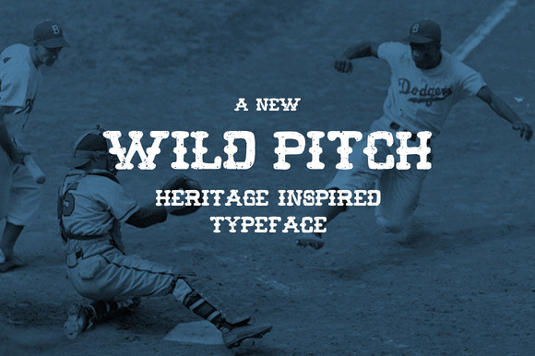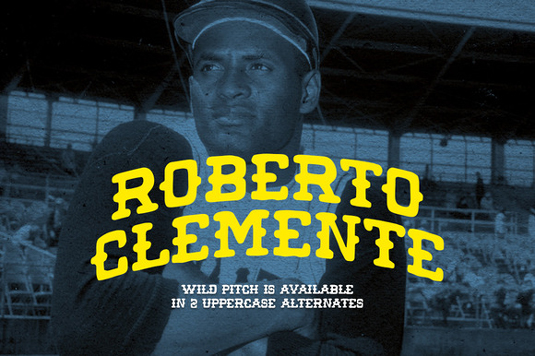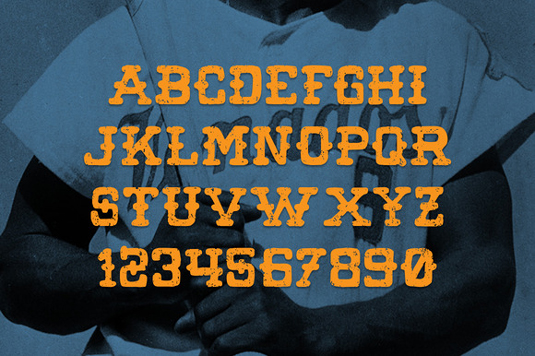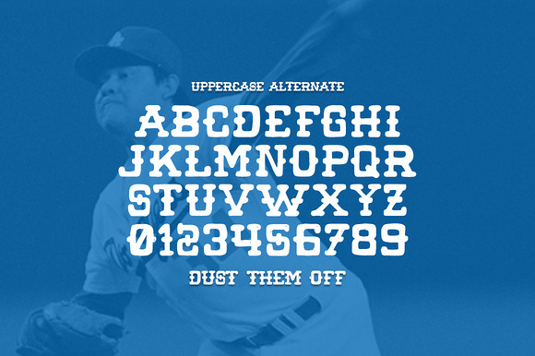
Font of the day: Wild Pitch
Each day of the week we showcase one of our favourite fonts – today it's Wild Pitch by Victor Coreas, which is free to download.
Wild Pitch by Victor Coreas
Art director Victor Coreas kicks our fonts of the day off this week with his Wild Pitch typeface. Developed while working on a packaging project, Wild Pitch is perfectly suited to headlines and titles.